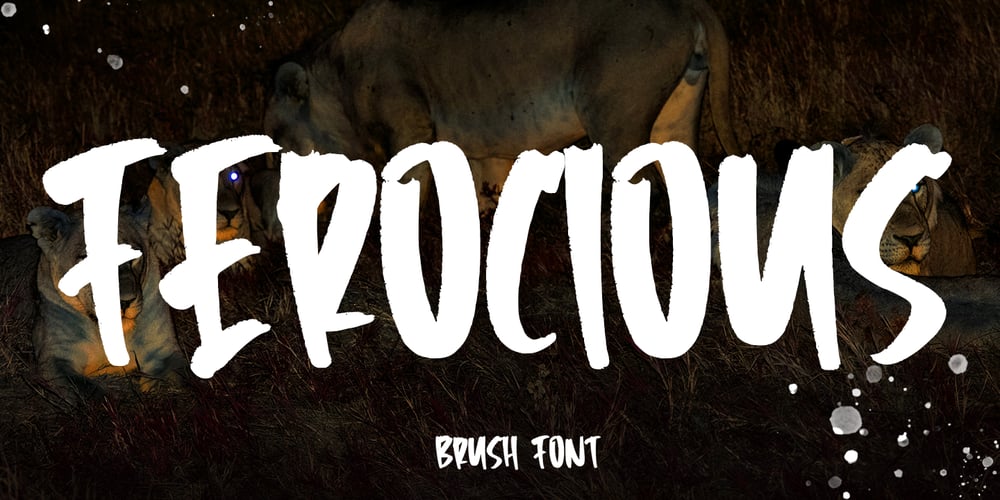
Ferocious
Ferocious font
Ferocious Font Family was designed by Asep Rendi and published by Arendxstudio. Ferocious contains 1 styles and family package options. Predator – Brush Font is a free style font that has the characteristics of street art that shows freedom and is filled with unique charactersFeatures : • Character Set A-Z • Numerals & Punctuations (OpenType Standard) • Accents (Multilingual characters) • Ligature • AlternateThere it is! I really hope you enjoy it